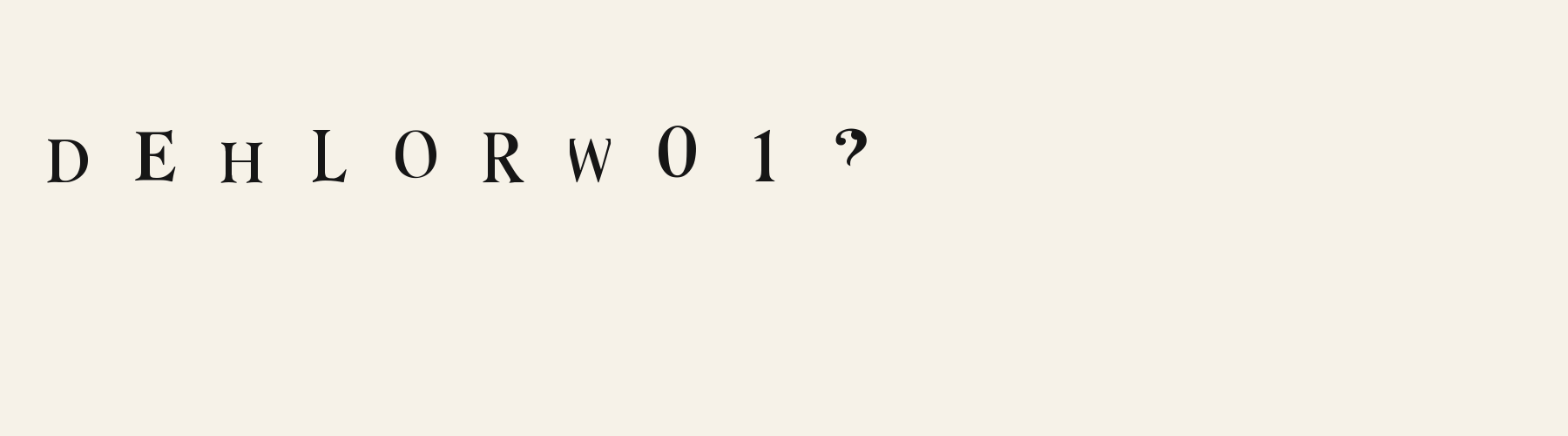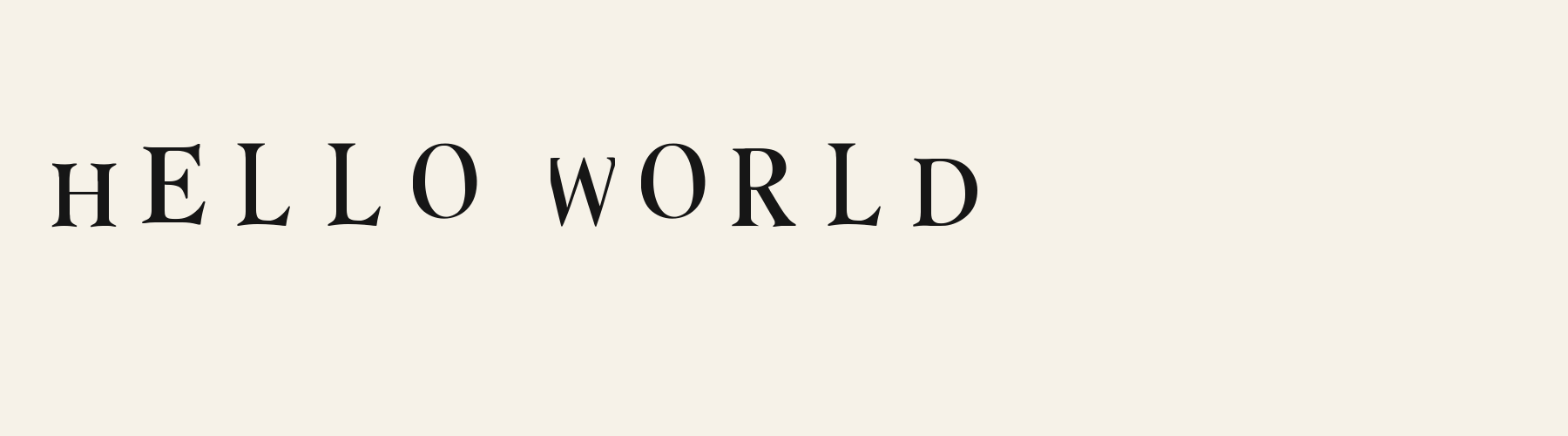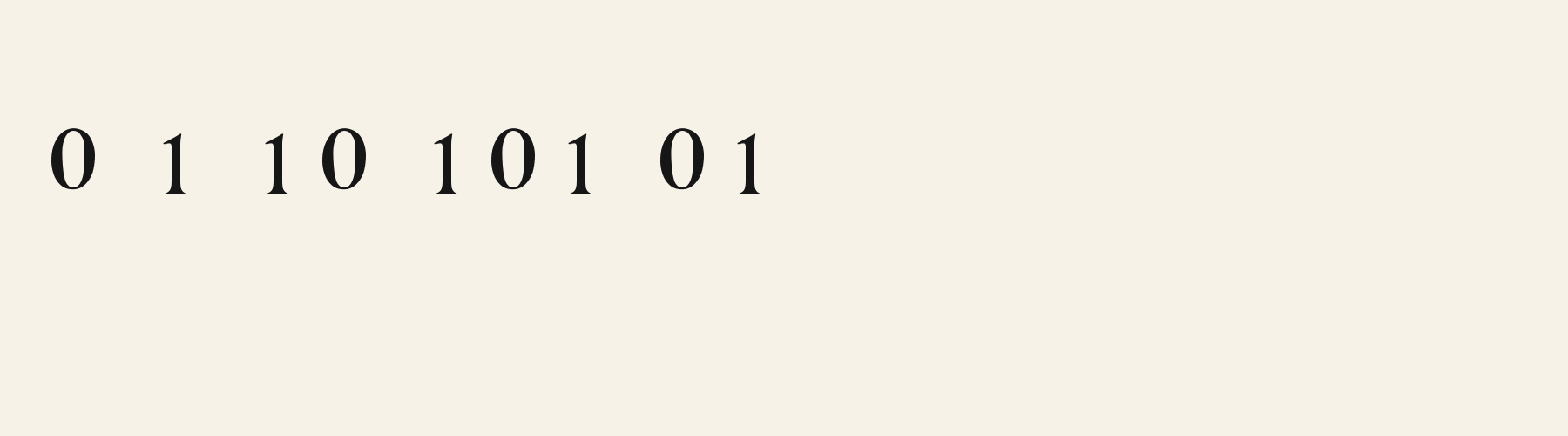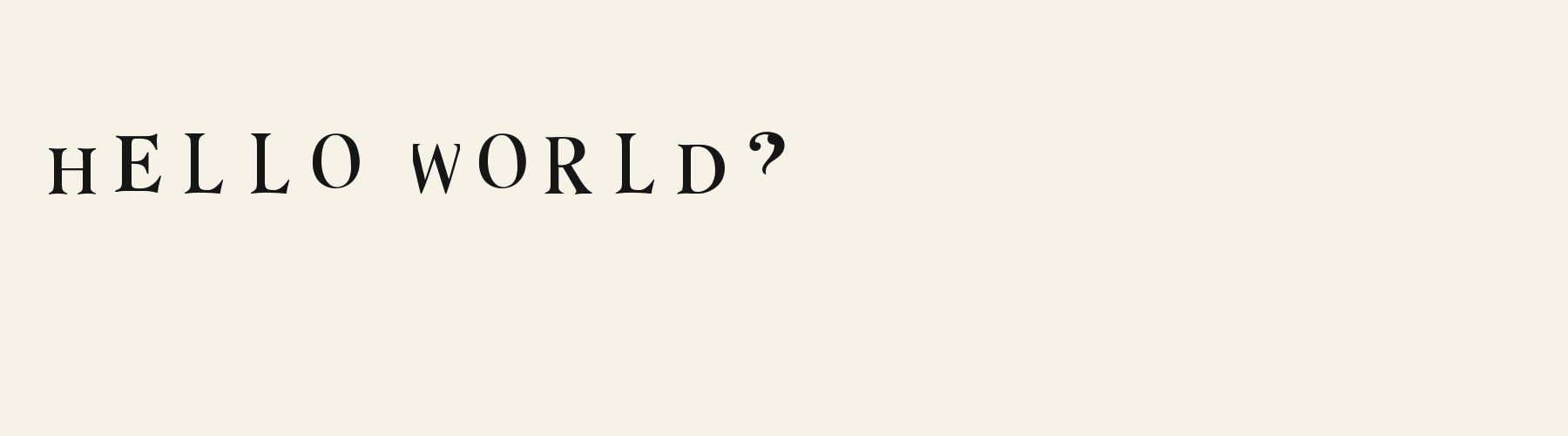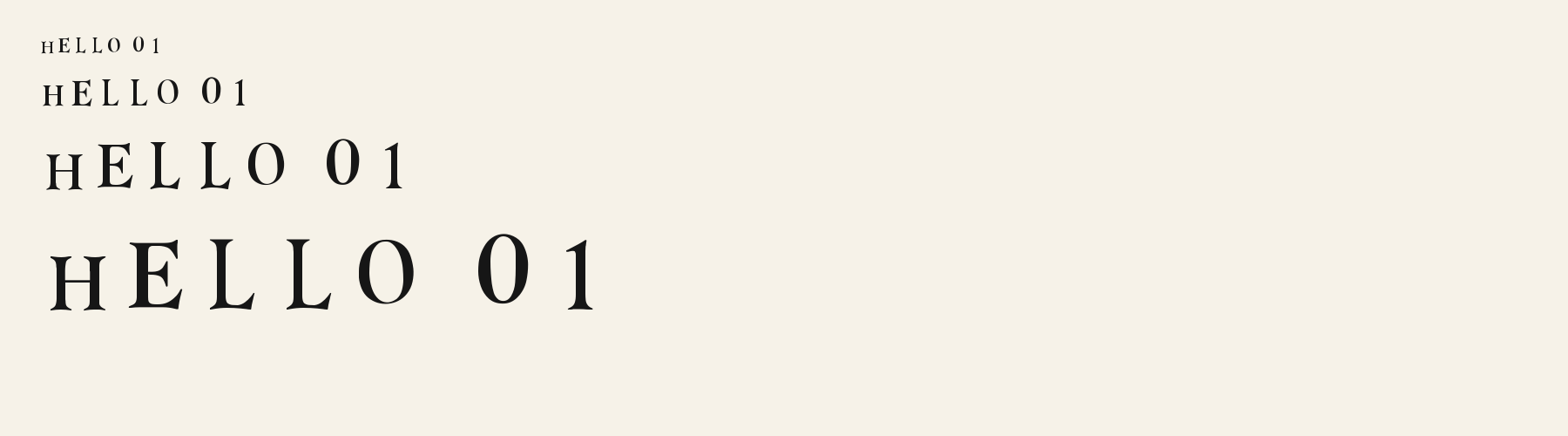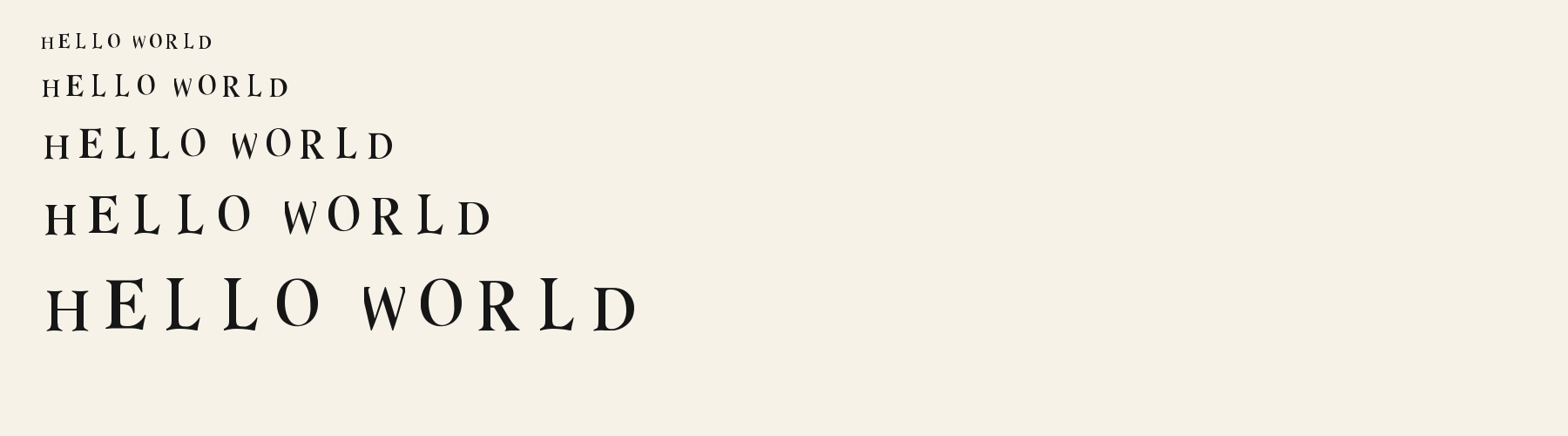
Serif Flared Humanist Crowned Wedge Editorial Font
Serif Flared Humanist pairs dark upright stems with fine connecting strokes and curved, pointed feet.
Crowned Wedge Editorial Letterforms
Serif Flared Humanist pairs dark upright stems with fine connecting strokes and curved, pointed feet. The E has a sharp middle arm and a lower terminal that lifts outward, while the L repeats that rising finish in a simpler silhouette. The O sits lower at the top than its neighboring capitals, with heavy sides and delicate curves across its crown and base. The W contributes slender diagonals and sharp lower points, making a lighter patch within the word. These shifts give the capitals a measured, literary rhythm, with enough softness in the joins to temper their formal stance.
Inspect the fine W diagonals, repeated L feet, and spacing around O in your actual wording, especially when reducing the preview. The specimens show Latin capitals; check lowercase, accented Latin, and any other script separately with the characters your project needs.
Try this face for a short heading with a restrained sans companion for supporting text and labels. The companion's even strokes can provide a quieter texture beneath the capitals' dark stems, thin curves, and pointed feet.
Serif Flared Humanist: letterforms and layout
Compare the original spacing with a slightly wider setting. Watch how the repeated L feet and the open space around W affect the rhythm; extra spacing also makes the rounded O feel more isolated.
In this uppercase phrase, solid stems alternate with fine curves and slender W diagonals. The pointed E and L terminals give the words a flowing finish suited to an editorial heading.
Keyhole Counter Roman Outline draws the same uppercase phrase with hollow outlined strokes and broader, flatter feet. The R has a pinched, lobed counter, adding an ornamental detail within the outlined construction.
Serif Flared Humanist font in use
A QUIET WORLD
Book or album cover. The dark stems and fine curves give a book title a literary tone, while pointed feet add character. OLIVE OIL
Product label. Rounded bowls and rising L terminals give a short product name a composed, carefully shaped presence. WITH LOVE
Card or invitation. Fine W diagonals and gently curved terminal transitions bring a light, formal rhythm to invitation wording.
The scenes are illustrations drawn on this page with Serif Flared Humanist itself, not client work.
About Serif Flared Humanist
The x-height is a compact 65.8% of the cap height, below the 69.6% median for serif fonts, lower than 47 of the 51 other serif fonts. Ascenders on b, d, h, k and l rise 12.6% above the capitals, and descenders on g, j, p, q and y drop 28.1% of the cap height below the baseline, shallower than 33 of the 51 other serif fonts. It sets narrow: an average lowercase letter, spacing included, is 76.4% as wide as the capitals are tall (an average capital, 89.1%), 8.5% less than the median for serif fonts, so more words fit on a line. The o is close to a circle, 1.00 times as wide as it is tall, and no capital is wider than H. The O stops 7% of the cap height short of H and dips 1.1% below the baseline.
The letters stand upright, leaning less than 2.5° either way. Ink covers 27% of each lowercase letter's box (its advance width by the cap height), lighter than 32 of the 51 other serif fonts.
Its 95 characters include 52 Latin letters, plus 43 figures, punctuation marks and symbols; there are no accented Latin letters beyond A to Z. The word space measures 50.4% of the cap height, and the blank space either side of a lowercase letter takes up 13% of its width. The font carries no kerning, so spacing comes from each letter’s own side bearings. The figures have different widths, so columns of numbers set in Serif Flared Humanist will not line up exactly.
Measured from the version 0.3.0 font file. Comparisons are with the 376 published library fonts measured on November 8, 2026, 52 of them serif fonts.
Includes all 95 printable Basic Latin characters, 95 characters in total.
- Calligraphic proportions, open counters and flared wedge terminals
- Moderate calligraphic modulation with diagonal stress
- Editorial display, quotations and premium packaging
- Civic Sans (sans serif), Orbital Sans (sans serif) and Flourish Sign (script) are drawn on a different letter structure, so Serif Flared Humanist can carry the headings while one of them sets the text. Each has its own page with a type tester for trying the pair.
- In the same serif style: Keyhole Counter Roman (heavier strokes, 12% wider); Mellow Italic (heavier strokes, 23% wider); Herald Nib Roman (9% wider, heavier strokes).